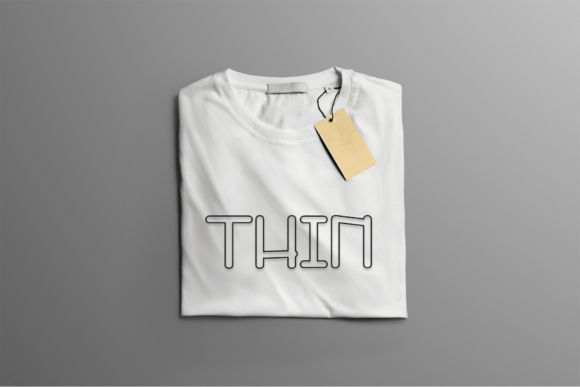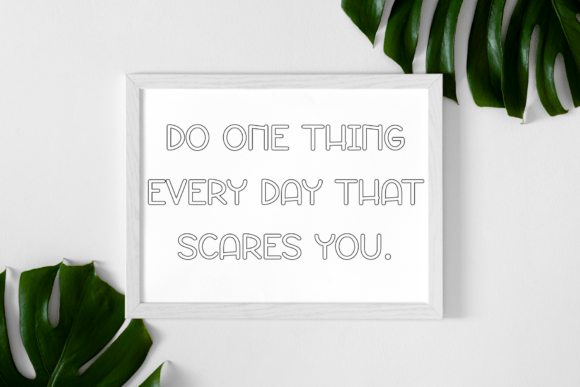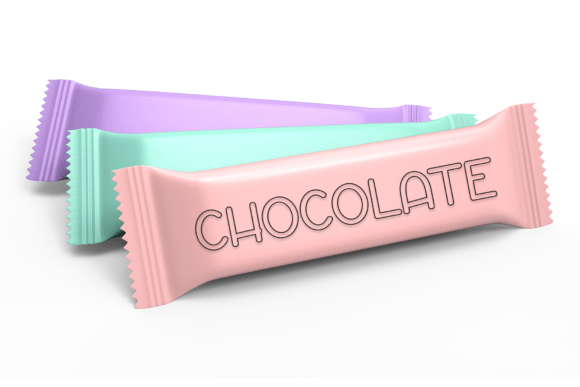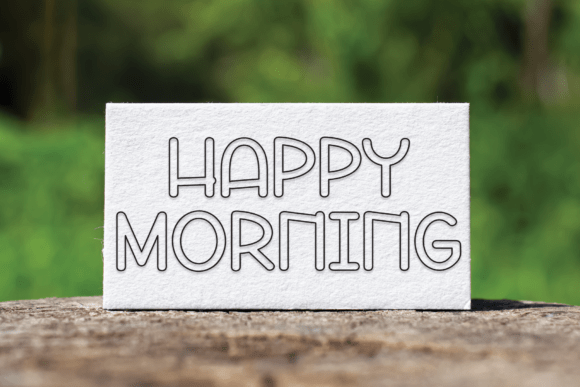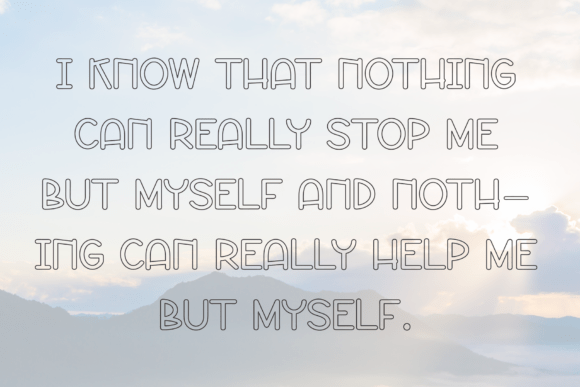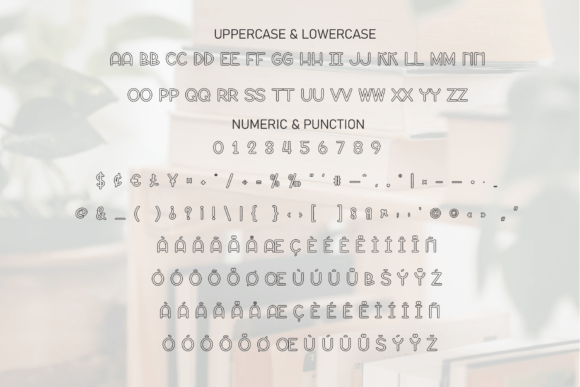
Introducing Book Stacked Font: Elevate Your Designs with a Touch of Elegance
Are you a designer, crafter, or DIY enthusiast looking for a unique and creative way to add a personal touch to your projects? Look no further than the Book Stacked Font, a specially designed font that offers a distinctive and stylish way to elevate your designs. In this article, we’ll explore the features and benefits of this amazing font and how it can help you create extraordinary experiences.
A Font that Offers Endless Creative Possibilities
The Book Stacked Font is a versatile and creative font that can be used for a wide range of projects, including wall displays, wedding invitations, social media post logos, advertisements, product packaging, product designs, labels, photography, watermarks, invitations, stationery, and any project that requires tasteful handwriting. Whether you’re a professional designer or a DIY enthusiast, this font offers the perfect way to add a personal touch to your creations.
What Sets Book Stacked Font Apart
So, what makes the Book Stacked Font so special? Here are just a few of the features that set it apart:
- Latest Style Letters: The Book Stacked Font features the latest style letters that are perfect for adding a touch of elegance and sophistication to your designs.
The Book Stacked Font offers a range of benefits for designers and crafters, including:
- Unique and Creative Designs: With the Book Stacked Font, you can create unique and creative designs that stand out from the crowd.
- Elegant and Sophisticated Look: The font’s elegant and sophisticated look makes it perfect for projects that require a touch of class and refinement.
How to Get the Most Out of Book Stacked Font
To get the most out of the Book Stacked Font, here are a few tips:
- Experiment with Different Sizes and Styles: Experiment with different sizes and styles to find the perfect look for your project.
- Combine with Other Fonts: Combine the Book Stacked Font with other fonts to create a unique and creative look.
- Use in Different Projects: Use the font in different projects, such as wedding invitations, social media post logos, and product packaging, to create a consistent brand identity.
In conclusion, the Book Stacked Font is a unique and creative font that offers a range of features and benefits for designers and crafters. With its elegant and sophisticated look, ease of use, and compatibility with a range of software, it’s the perfect solution for anyone looking to add a personal touch to their projects. Whether you’re a professional designer or a DIY enthusiast, the Book Stacked Font is sure to help you create extraordinary experiences.